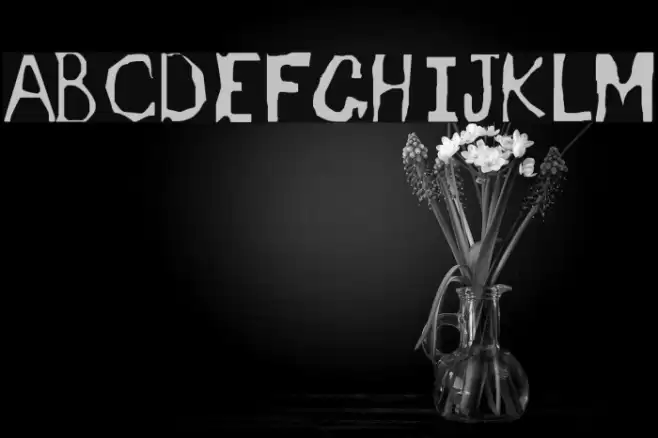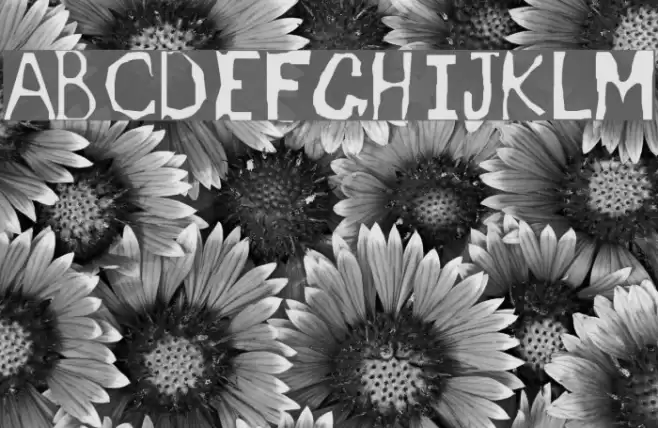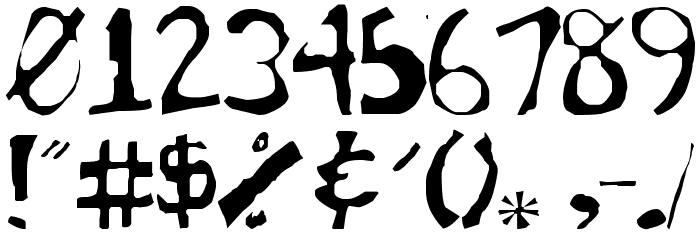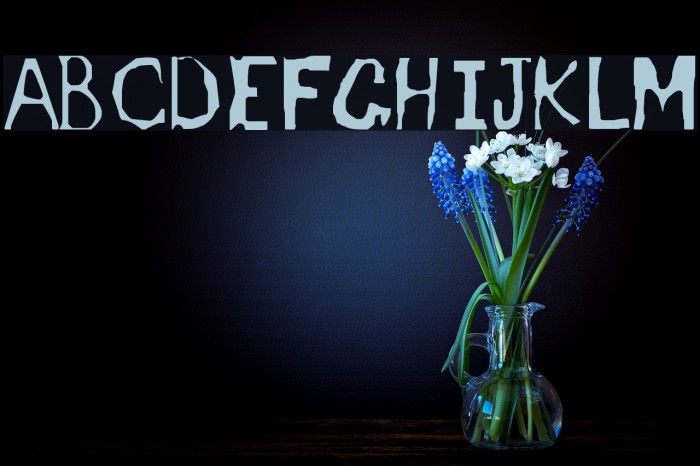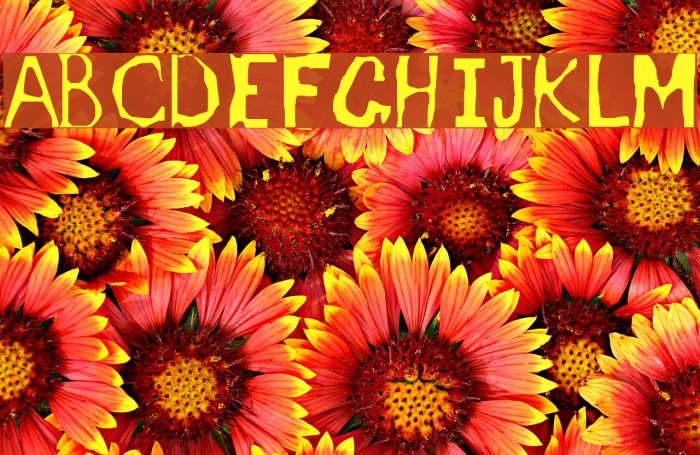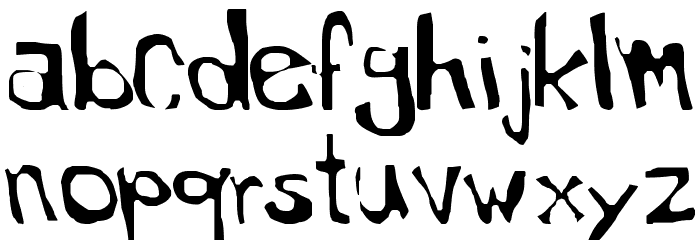
Dyslexic English Teacher Font
Dyslexic English Teacher Description
This font exhibits a unique, hand-drawn style with irregular shapes and varying stroke thicknesses, giving it a raw and organic appearance. The characters are bold and somewhat distorted, with uneven edges that create a sense of movement and energy. The uppercase and lowercase letters maintain a consistent style, while the numbers and special characters complement the overall aesthetic. This font's distinctive look makes it stand out, offering a playful yet edgy vibe that can add character to any design project.
A bold, hand-drawn font with irregular, energetic strokes and a playful, edgy vibe from Handwritten fonts.